Script typeface
Script typefaces are based on the varied and often fluid stroke created by handwriting.[1][2] They are generally used for display or trade printing, rather than for extended body text in the Latin alphabet. Some Greek alphabet typefaces, especially historically, have been a closer simulation of handwriting.
Styles
Script typefaces are organized into highly regular formal types similar to cursive writing and looser, more casual scripts.
Formal scripts
A majority of formal scripts are based upon the letterforms of seventeenth and eighteenth century writing-masters like George Bickham, George Shelley and Charles Snell[4]. The letters in their original form are generated by a quill or metal nib of a pen. Both are able to create fine and thick strokes. Typefaces based upon their style of writing appear late in the eighteenth century and early nineteenth century. Contemporary revivals of formal script faces can be seen in Kuenstler Script and Matthew Carter's typeface Snell Roundhand. These typefaces are frequently used for invitations and diplomas to effect an elevated and elegant feeling. They may use typographic ligatures to have letters connect.
Casual scripts
Casual scripts show a less formal, more active hand. The strokes may vary in width but often appear to have been created by wet brush rather than a pen nib. They appeared in the early twentieth century, and with the advent of photocomposition in the early 1950s, their number rapidly increased. They were popularly used in advertising in Europe and North America into the 1970s. Examples of casual script types include Brush Script, Kaufmann and Mistral. Some may be non-connecting like Freestyle Script.
Technology
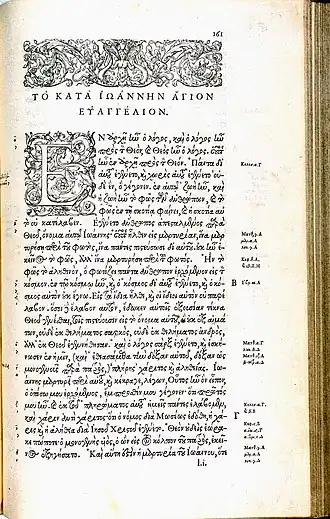
Script typefaces place particular demands on printing technology if the letters are intended to join up and vary like handwriting. A typeface intended to mimic handwriting, such as Claude Garamond's grecs du roi typeface, will require many alternate characters. In digital type these (once drawn) can be substituted seamlessly through contextual ligature insertion in applications like InDesign, but this was complicated in metal. Another complexity in metal type was that sorts had to have delicate overhanging parts to interlock. This required careful design and casting for the sorts to fit together without gaps or the sorts breaking, or leaving gaps to be filled in by the natural spread of ink on paper.[5][6]
Script typefaces have evolved rapidly in the second half of the 20th century due to developments in technology and the end of widespread use of metal type. Historically, most signwriting on logos, displays and shop frontages did not use fonts but was rather custom-designed lettering created by signpainters and engravers.[7][8][9][10] As phototypesetting and then computers have made printing text at a range of sizes far easier than in the metal type period, it has become increasingly common for businesses to use type for logos and signs rather than hand-drawn lettering. In addition, phototypesetting made overlap of characters relatively simple, something very complicated to achieve in metal type. Matthew Carter has cited his 1966 Snell Roundhand typeface as deliberately designed to replicate a style of calligraphy hard to simulate in metal.[11][12] An additional development enabling more sophisticated script fonts has been the release of the OpenType format, which most fonts are now released in. This allows fonts to have a large character set, increasing the sophistication of design possible, and contextual insertion, in which characters that match one another are inserted into a document automatically, so fonts can convincingly mimic handwriting without the user having to choose the correct substitute characters manually.[13] Many modern script typefaces emulate the styles of hand-drawn lettering from different historical periods.
Unicode
For most conventional usages, the regular alpha-numeric codepoints for ordinary text should be used, irrespective if their presentation. Script presentation is specified using (for example) the HTML span style="font-family=
command.
For mathematical use, there are sets of dedicated codepoints with both capital and small letters. Few fonts provide support for all 52 characters, and their presentations vary in style from roundhand to chancery hand and others.
These characters are: ๐โฌ๐๐โฐโฑ๐ขโโ๐ฅ๐ฆโโณ๐ฉ๐ช๐ซ๐ฌโ๐ฎ๐ฏ๐ฐ๐ฑ๐ฒ๐ณ๐ด๐ต ๐ถ๐ท๐ธ๐นโฏ๐ปโ๐ฝ๐พ๐ฟ๐๐๐๐โด๐ ๐๐๐๐๐๐๐๐๐๐
- Some characters are named "SCRIPT ..." in Unicode:
- U+2113 โ SCRIPT SMALL L (ℓ)
- U+2118 โ SCRIPT CAPITAL P (℘, ℘) (actually a misnomer, name is corrected into WEIERSTRASS ELLIPTIC FUNCTION)